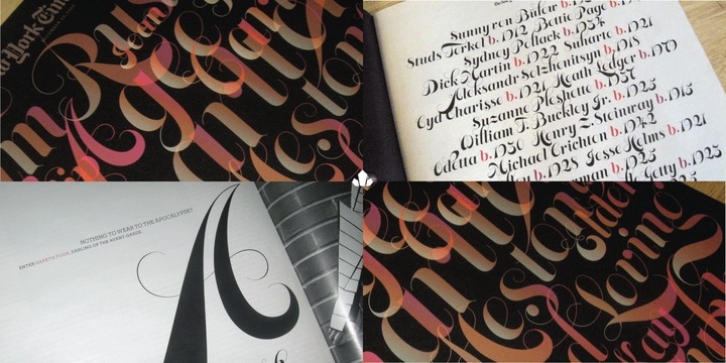
Publisher: Canada Type
Memoriam Pro was designed by Patrick Griffin and published by Canada Type. Memoriam Pro contains 4 styles and family package options.
The tradition at the New York Times magazine has been to dedicate the year's last issue to the people who passed away during the year, especially those whose lives have affected us. Art director Nancy Harris Rouemy, whose typographic design sense has earned her many prestigious awards over the years, decided on an all-type magazine cover for the 2008 issue, and commissioned Canada Type's Patrick Griffin to do a new typeface especially for that project.
Though a few other Canada Type faces were used in the magazine with great results over the preceding months (mainly Ambassador Script and Sympathique), Nancy thought some of the ideas in Jezebel's uppercase and Treasury's lowercase would be a good fit onto an all-type commemorative cover, but with a much higher contrast and the infusion of a more luxurious and elegant brand of poster calligraphy that doesn't date itself. After a few different attempts, the first shapes were born, and six weeks later there were enough forms to do the cover. The typeface was such a success with the editors and designers, it was used all over the magazine, instead of just the cover.
The list of people being commemorated with this font was certainly enough to convince Patrick to take on such a demanding project. He'd grown up in a culture where names like George Carlin, Michael Crichton, Bobby Fisher, Charlton Heston, and Paul Newman were daily household language, and this was a great opportunity to offer a final tribute to them. Also the pleasure of working with Nancy Harris Rouemy, the lady with the X-ray eyes, with her unwavering vision and constant attention to typographic detail, went a long way to shaping this typeface and making it the modern and contemporary piece of elegance it became.
The New York Times magazine issue that first used Memoriam Pro went on to win a multitude of design contests and publication awards, and continues to raise appreciative eyebrows to this very day. The Memoriam design concept also became one of the most drawn-upon and imitated in recent memory.
The retail version of Memoriam Pro was released to enormous fanfare in mid-2009. Since then it has become a standard sight on book and magazine covers, billboards, food and cosmetics packaging, event posters, and high-end design pieces everywhere. It continues generating many calls for project-specific customization for countless publications and design agencies. In 2011 three new Memoriam Pro variants (Headline, Outline and Inline) to accommodate public demand.
· Memoriam Pro Regular
· Memoriam Pro Outline
· Memoriam Pro Inline
· Memoriam Pro Headline